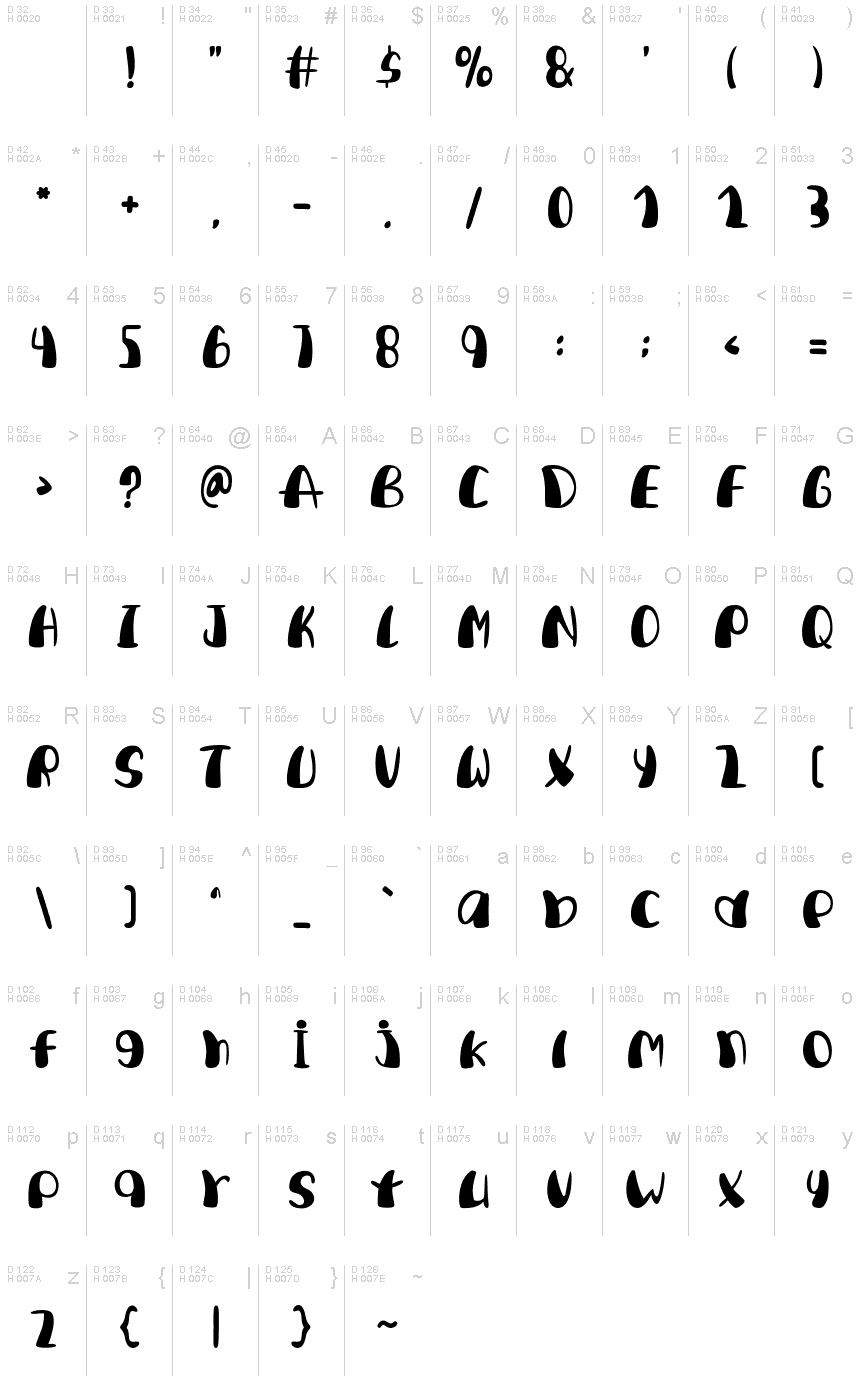
Dream Colorfull
Dream Colorfull is a cute and fun-themed display font designed by Sixtwenty Studio.
Dream Colorfull is perfect for posters, t-shirts, book covers, packaging, stickers, quotes, and all designs that require a soft, cute, and happy element.